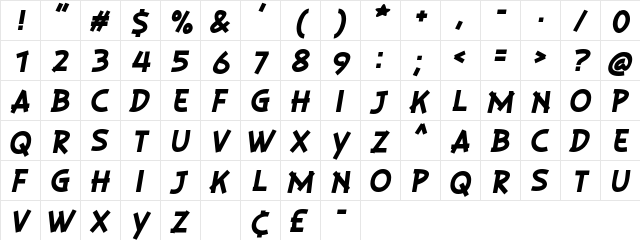
PLAYSIR Italic
Design Context for PLAYSIR Typeface
PLAYSIR is a composed and adaptable typeface that performs quietly and consistently across a wide range of design contexts. The slanted form adds forward momentum and visual energy.
Pro Tip: Use PLAYSIR for emphasis, pull quotes, and subheadings where its slanted energy can add rhythm to the layout.